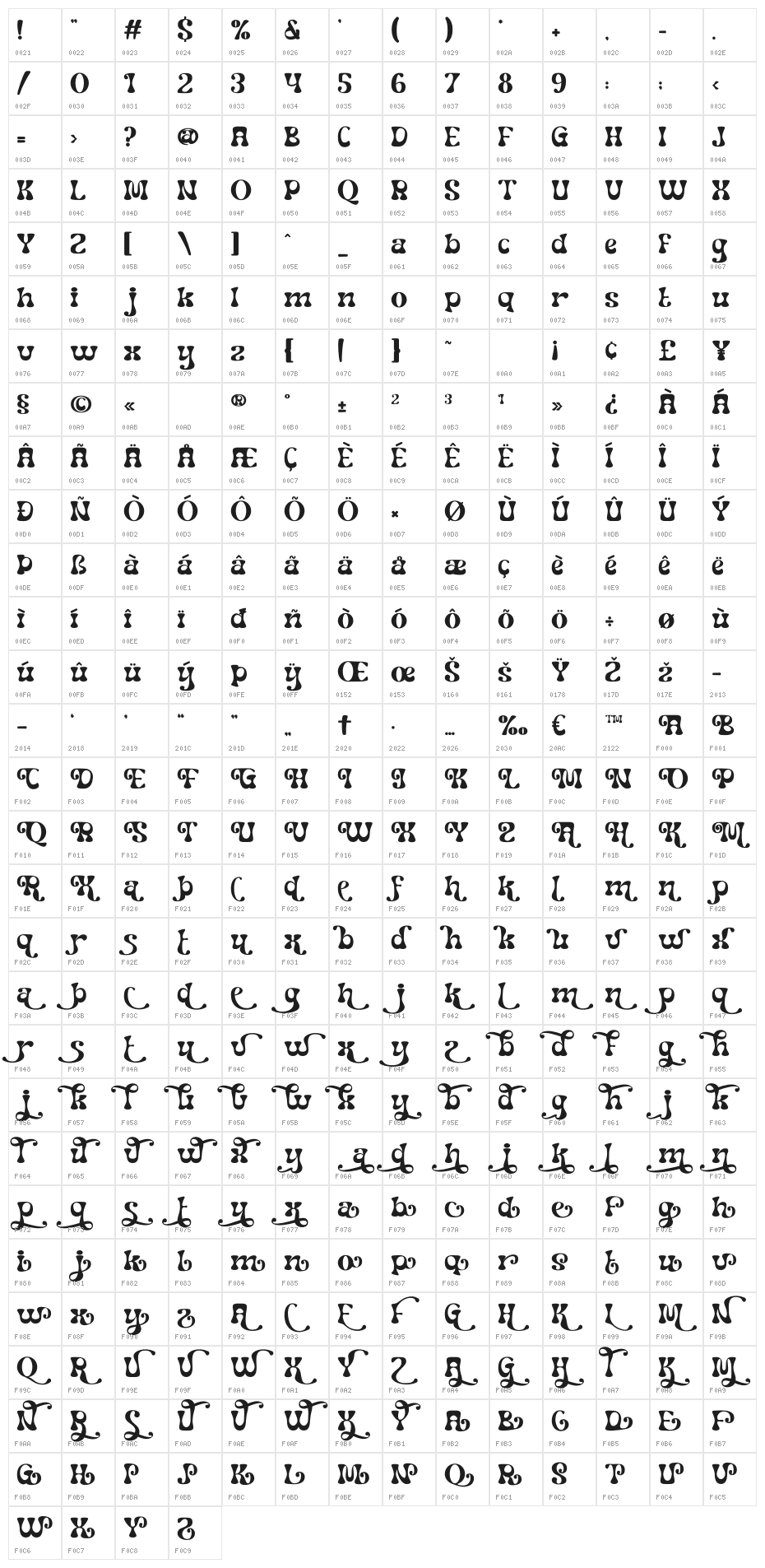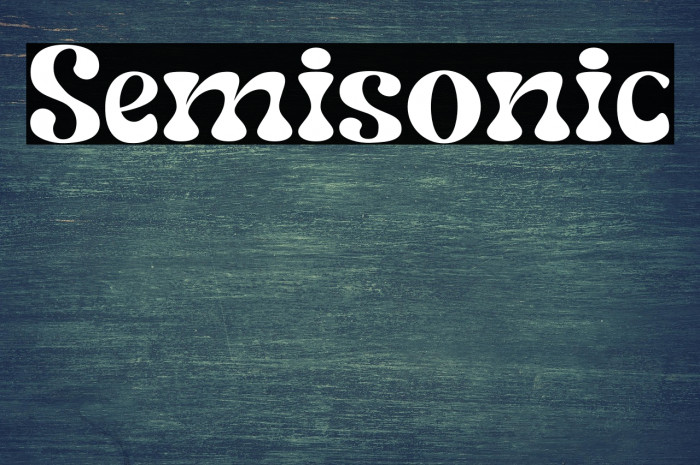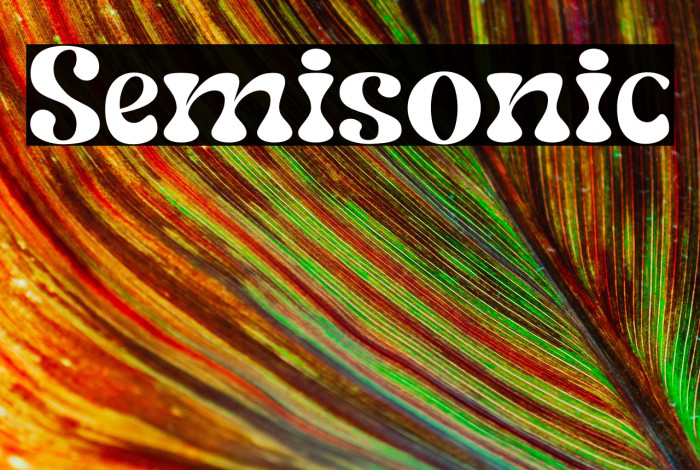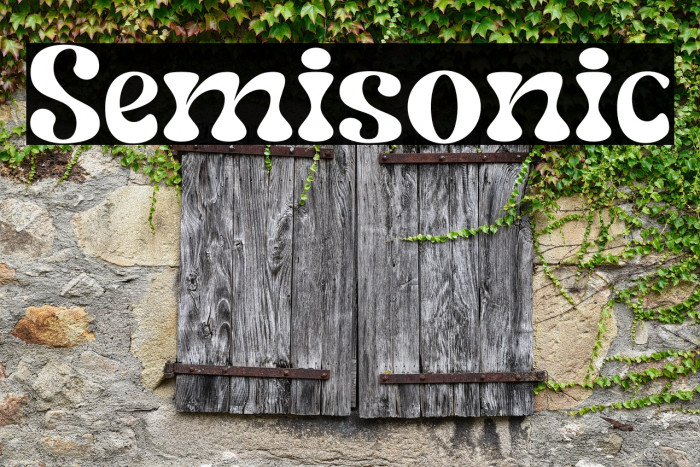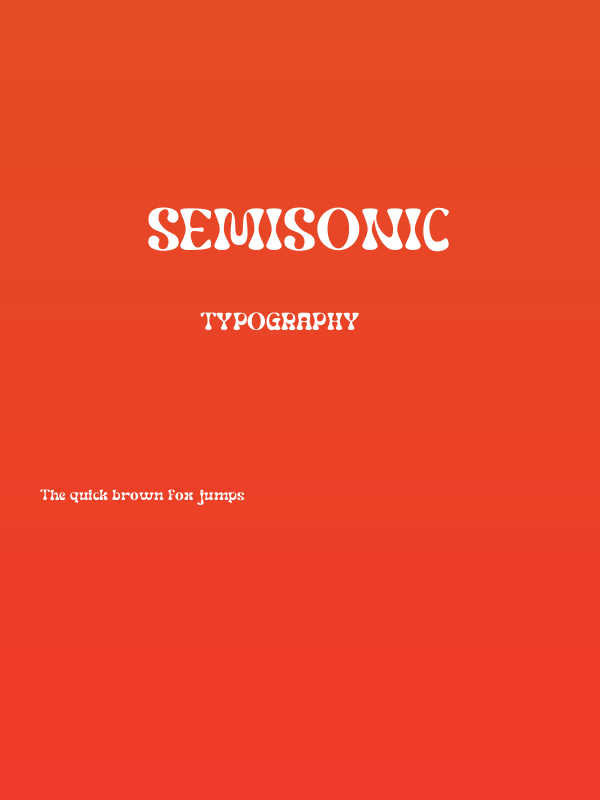
Semisonic Font
Semisonic Description
This font features a playful and bold design with a unique, wavy appearance that gives it a lively and dynamic feel. The characters are thick and rounded, with a distinct flow that makes each letter stand out. The uppercase and lowercase letters maintain a consistent style, while the numbers and special characters complement the overall aesthetic. The font's whimsical nature makes it ideal for creative and eye-catching designs, adding a touch of fun and personality to any project.
| Overall Style | Playful |
| Proposed Projects | Ideal for posters, children's books, playful branding, and creative advertisements. |